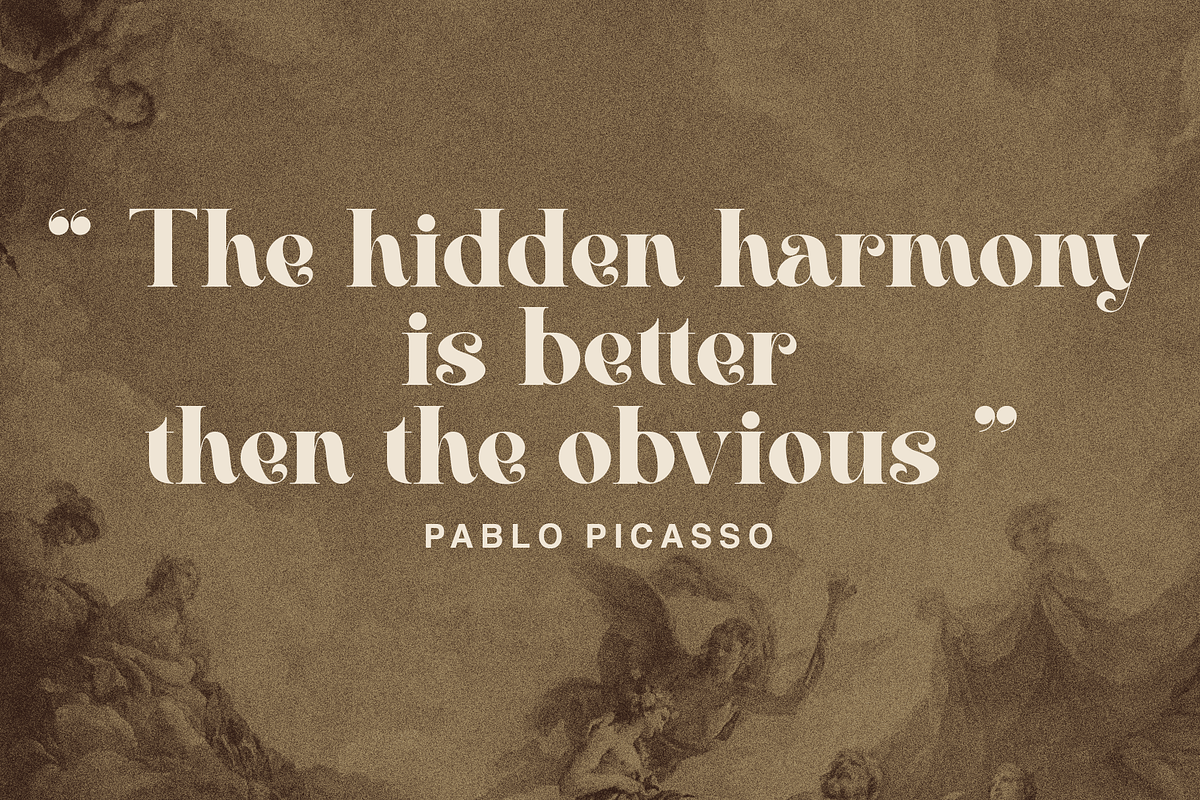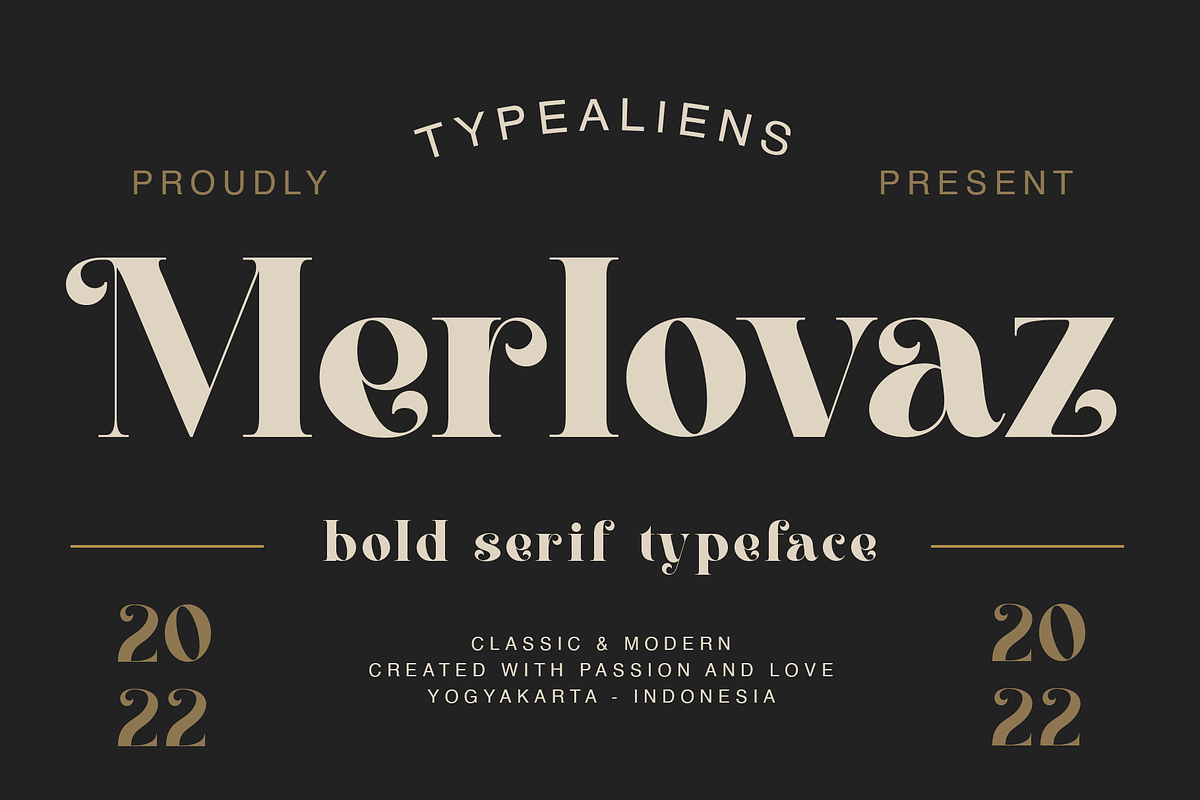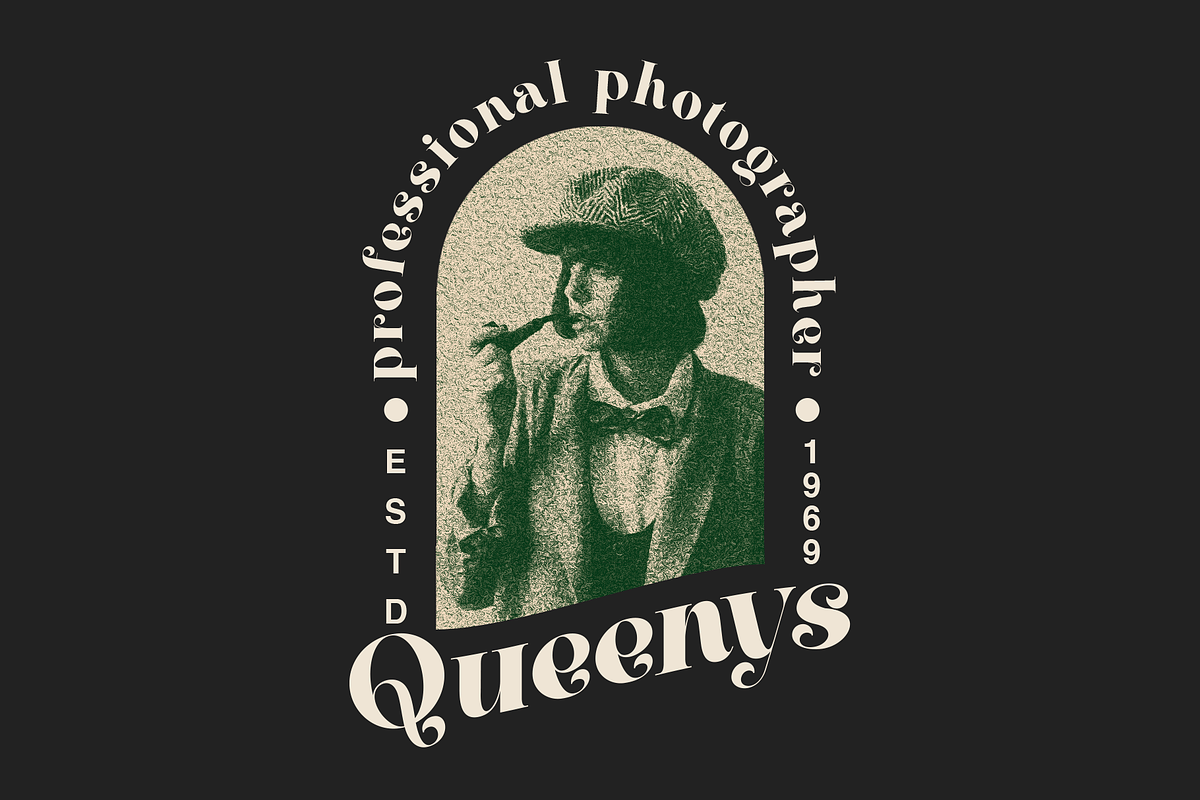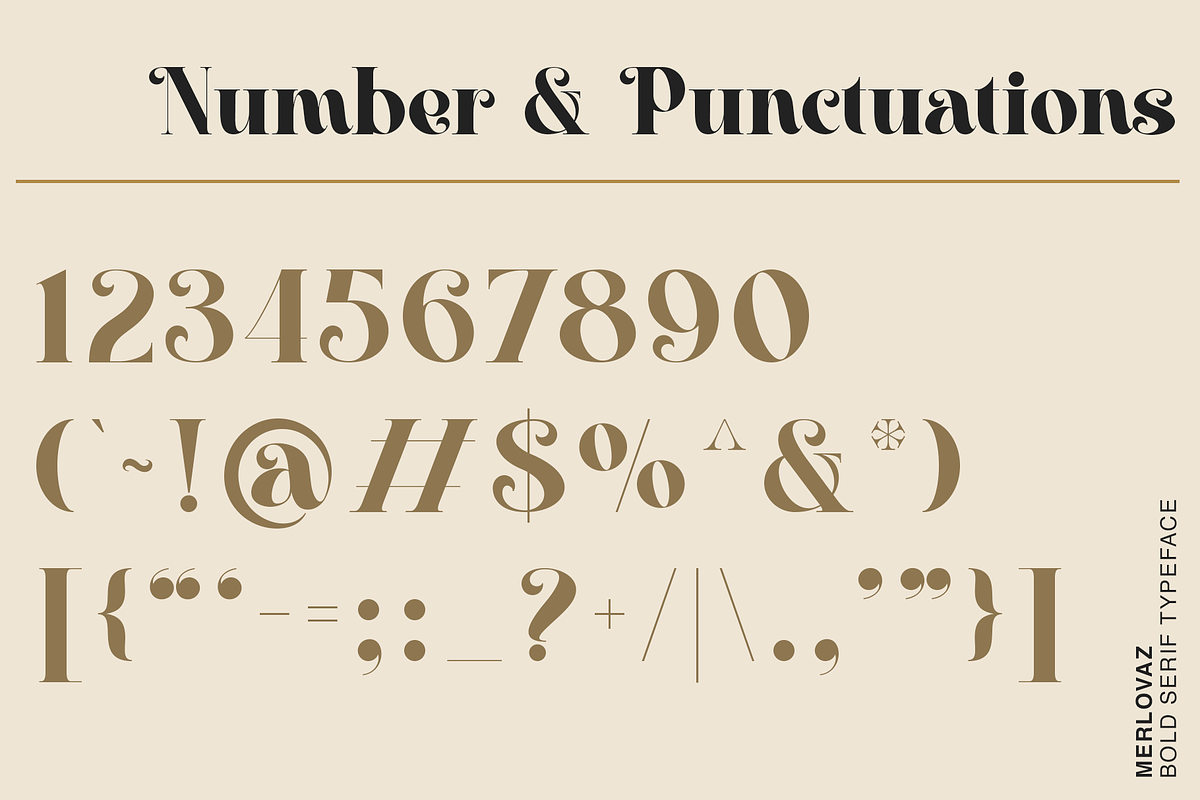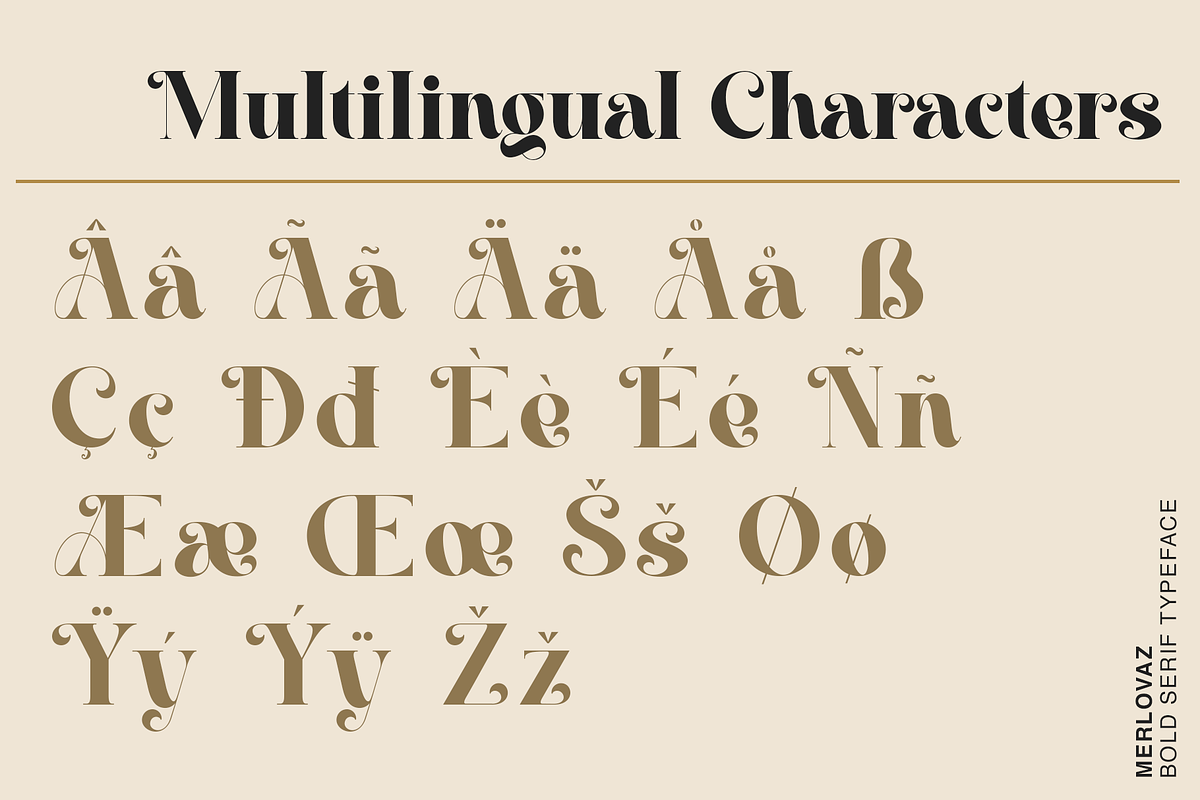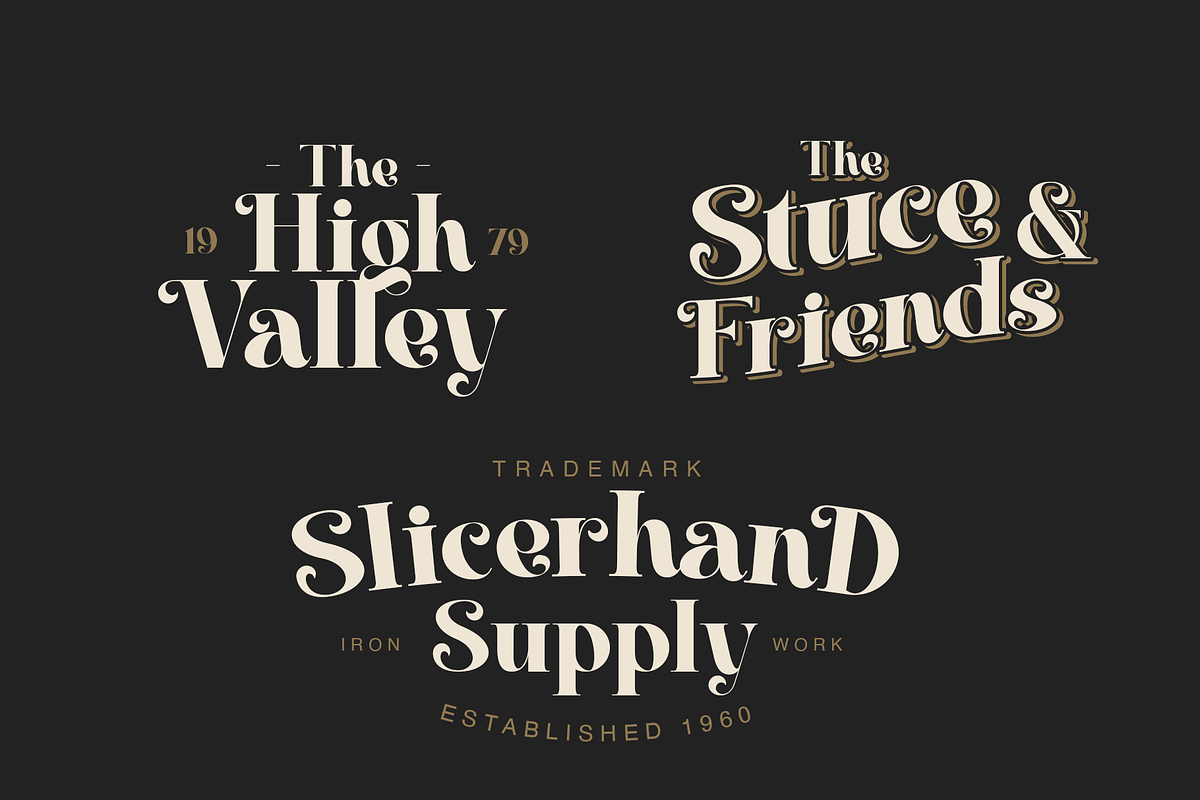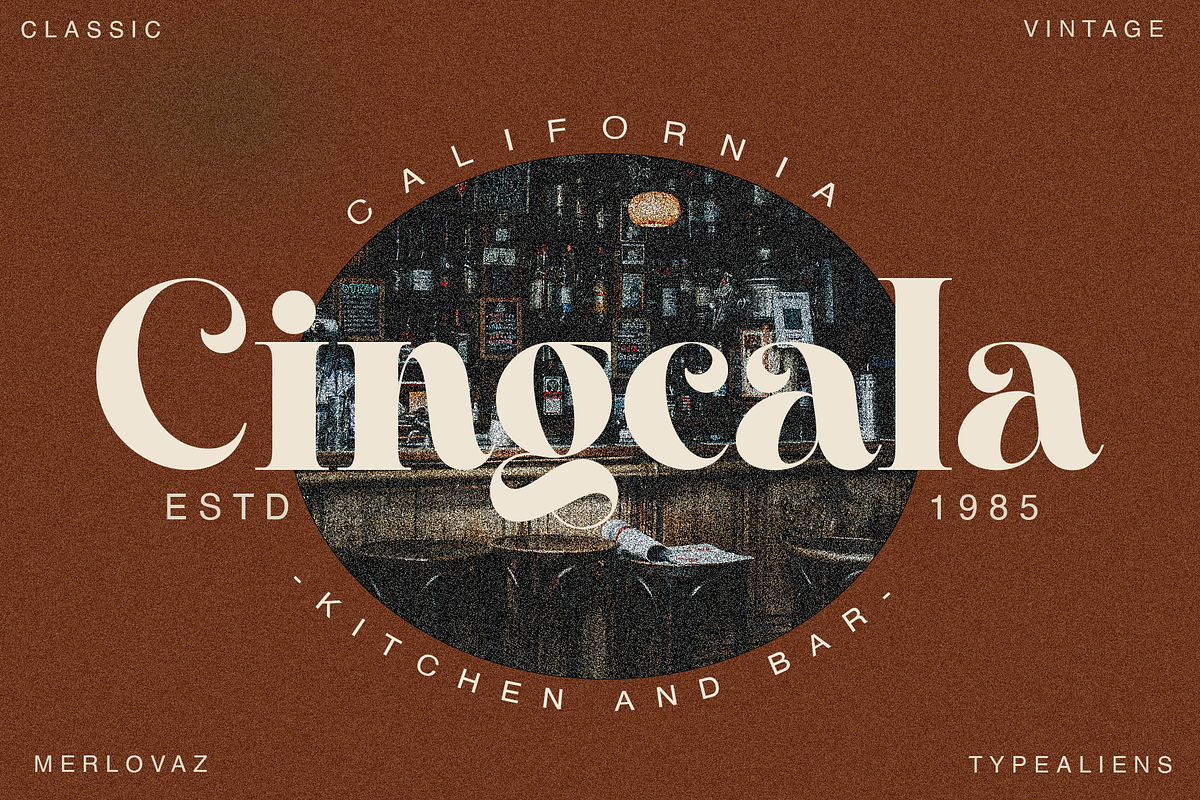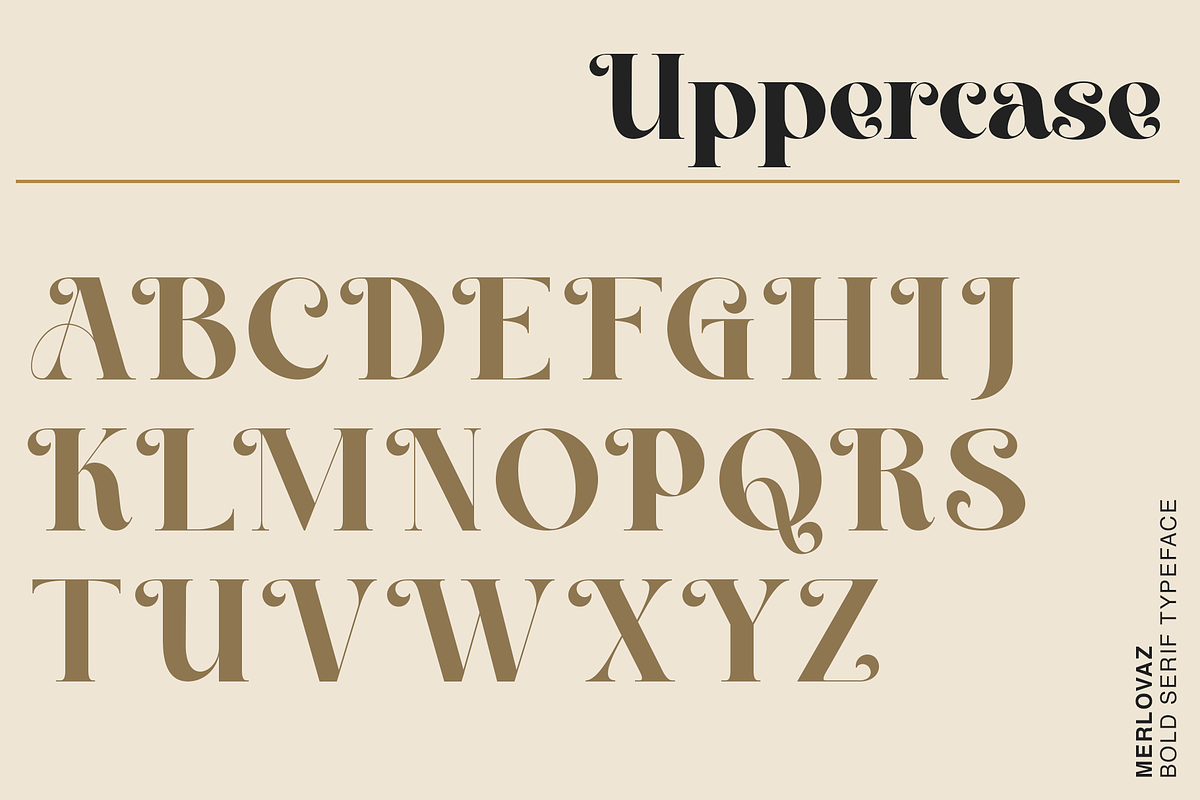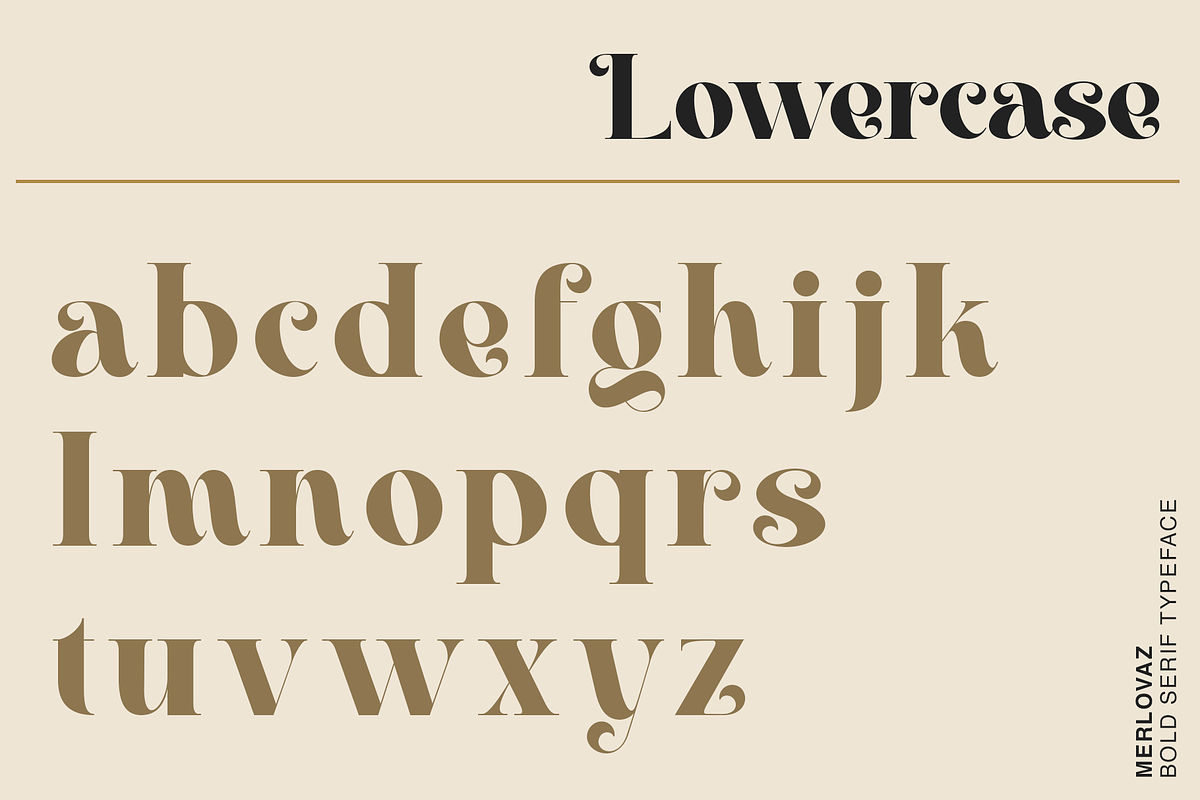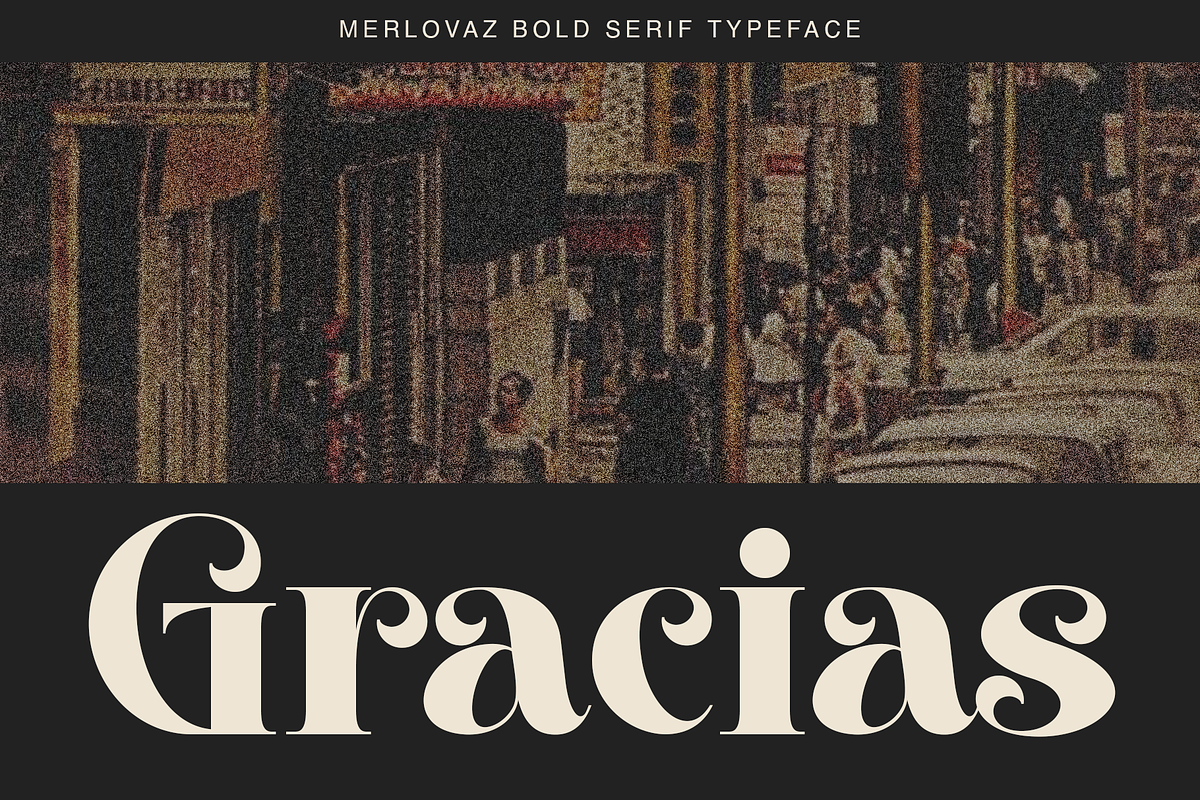
Merlovaz
MERLOVAZ
Merlovaz is a bold, vintage-style font that has beautiful curves. This font is basically a classic serif font that is thick and has a slightly beautiful feature because the strokes have beautiful bends so that even though it is sturdy it still has a beauty side, it is very suitable for vintage designs such as a brand logo badge, liquor label, but also can for more modern designs like magazine headlines.